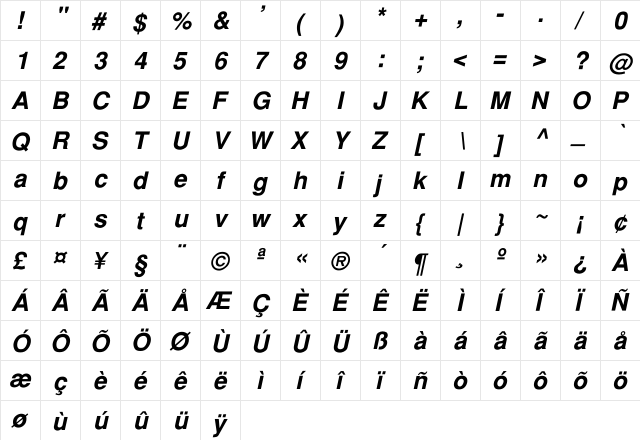
Holland Bold Italic Italic
Design Context for Holland Bold Italic Typeface
Holland Bold Italic offers clean, dependable letterforms without strong stylistic allegiance, making it a practical choice for designers who need flexibility. The slanted form adds forward momentum and visual energy. The heavy weight commands attention and anchors typographic hierarchies.
Pro Tip: Use Holland Bold Italic for emphasis, pull quotes, and subheadings where its slanted energy can add rhythm to the layout.